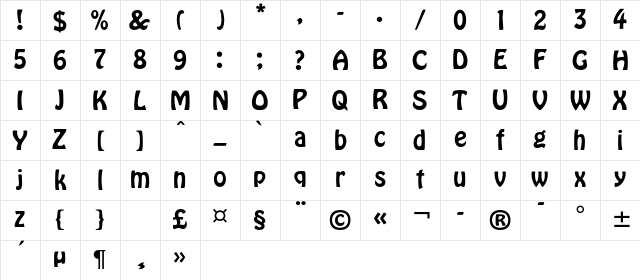
Complete MorrisModern Regular glyph index. Displaying only characters natively supported by MorrisModern Regular font.
MorrisModern is a composed and adaptable typeface that performs quietly and consistently across a wide range of design contexts.